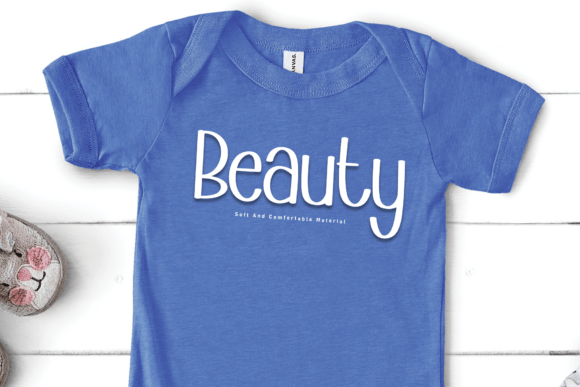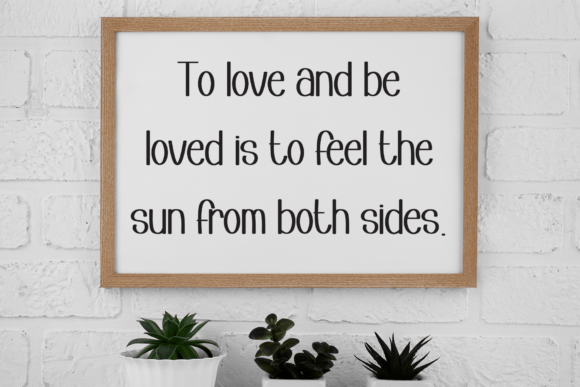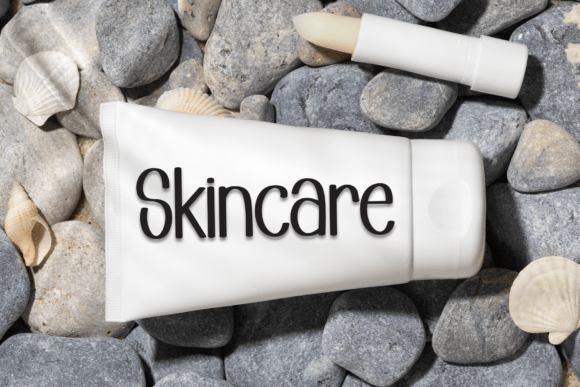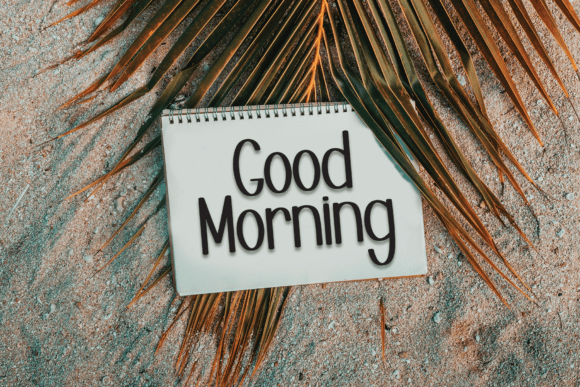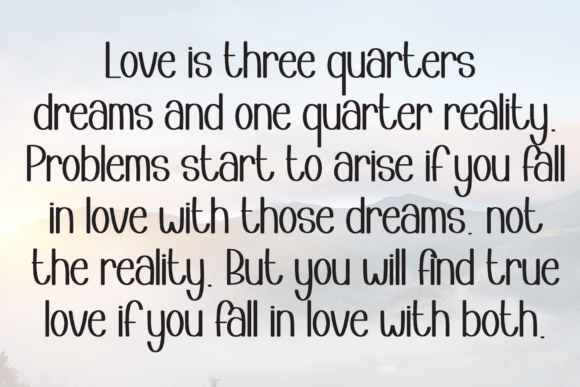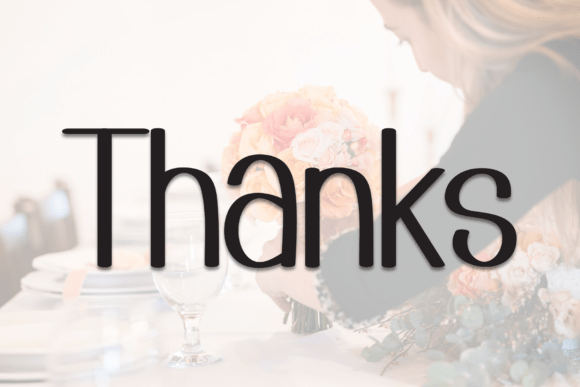
Girls Ornament Font: The Sweet and Friendly Handwritten Font for Your Creative Projects
Are you a designer or crafter looking for a font that can add a touch of sweetness and friendliness to your creative projects? Look no further than Girls Ornament Font! This beautiful handwritten font is perfect for a wide range of designs, from invitations and greeting cards to branding and packaging. In this article, we’ll take a closer look at Girls Ornament Font and explore its features, benefits, and uses.
What is Girls Ornament Font?
Girls Ornament Font is a sweet and friendly handwritten font that is designed to bring a touch of warmth and personality to your designs. Its natural and unique style makes it incredibly fitting to a large pool of designs, from feminine and elegant to playful and whimsical. The font is perfect for designers and crafters who want to add a personal touch to their projects and make them stand out from the crowd.
Features of Girls Ornament Font
Girls Ornament Font has several features that make it a great choice for designers and crafters. Some of its key features include:
- Handwritten style: Girls Ornament Font has a beautiful handwritten style that gives it a personal and unique touch.
- Sweet and friendly: The font has a sweet and friendly feel that makes it perfect for designs that require a touch of warmth and personality.
- Natural and unique: The font’s natural and unique style makes it incredibly fitting to a large pool of designs.
- Versatile: Girls Ornament Font is a versatile font that can be used for a wide range of designs, from invitations and greeting cards to branding and packaging.
Benefits of Using Girls Ornament Font
There are several benefits to using Girls Ornament Font in your designs. Some of the benefits include:
- Adds a personal touch: Girls Ornament Font adds a personal touch to your designs, making them more unique and special.
- Perfect for feminine designs: The font is perfect for feminine designs, such as wedding invitations, birthday cards, and branding for women’s products.
- Easy to read: Girls Ornament Font is easy to read, making it perfect for designs that require a clear and legible font.
- Customizable: The font can be customized to fit your design needs, including changing the color, size, and style.
Uses of Girls Ornament Font
Girls Ornament Font can be used for a wide range of designs, including:
- Invitations: The font is perfect for invitations, such as wedding invitations, birthday invitations, and baby shower invitations.
- Greeting cards: Girls Ornament Font is great for greeting cards, such as Christmas cards, Valentine’s Day cards, and thank-you cards.
- Branding: The font can be used for branding, such as logos, packaging, and website headers.
- Packaging: Girls Ornament Font is perfect for packaging, such as labels, tags, and product packaging.
Tips for Using Girls Ornament Font
Here are some tips for using Girls Ornament Font in your designs:
- Use it with a simple background: Girls Ornament Font looks best with a simple background, such as a solid color or a subtle texture.
- Experiment with different colors: The font can be used with a variety of colors, so experiment with different colors to find the one that works best for your design.
- Use it in combination with other fonts: Girls Ornament Font can be used in combination with other fonts to create a unique and interesting design.
Girls Ornament Font is a sweet and friendly handwritten font that is perfect for designers and crafters who want to add a touch of warmth and personality to their designs. Its natural and unique style makes it incredibly fitting to a large pool of designs, and its versatility makes it perfect for a wide range of projects. With its ease of use and customization options, Girls Ornament Font is a great choice for anyone looking to add a personal touch to their designs.